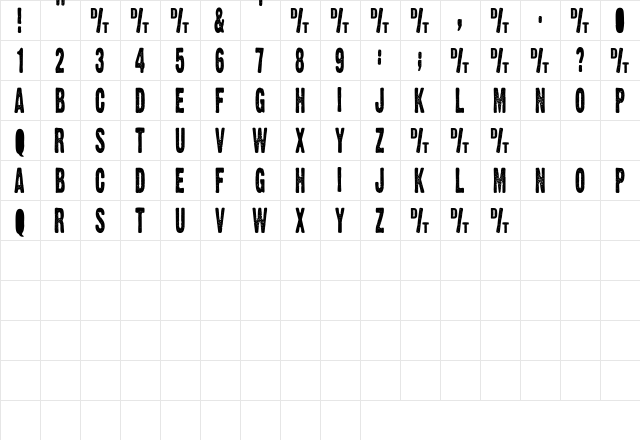
LoveMeAvenue Regular
Design Context for LoveMeAvenue Typeface
LoveMeAvenue is a composed and adaptable typeface that performs quietly and consistently across a wide range of design contexts.